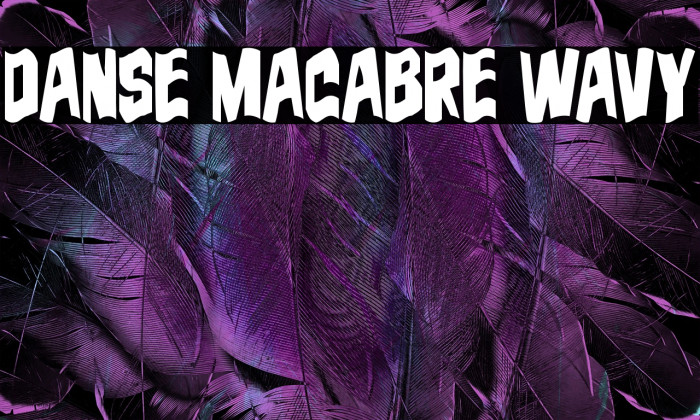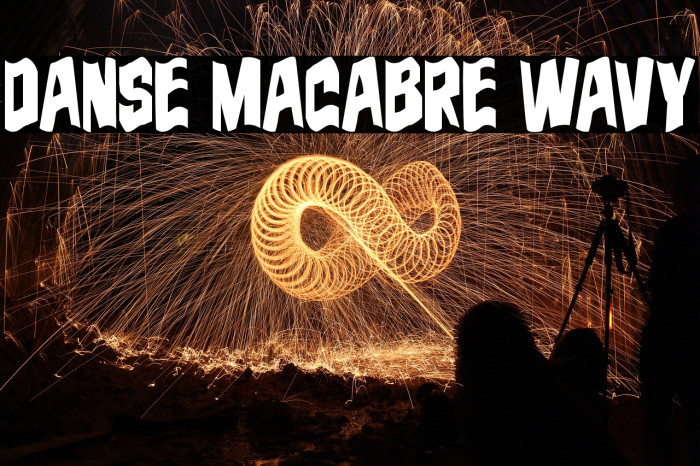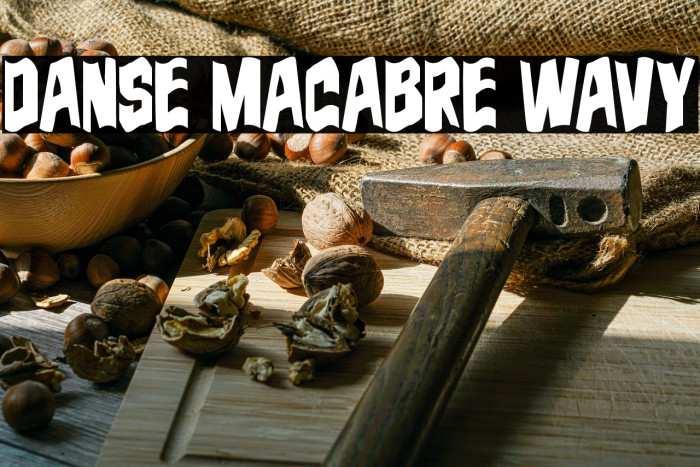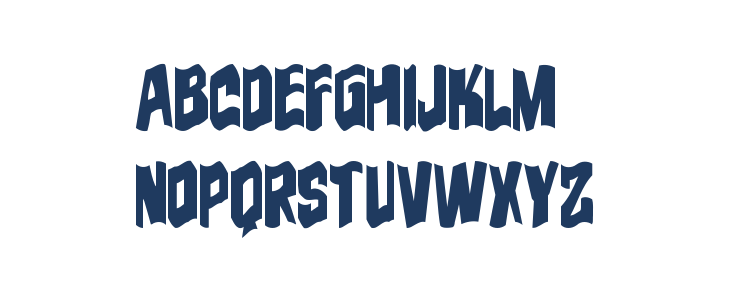
Danse Macabre Wavy Font
Danse Macabre Wavy Description
This font features a bold and dramatic style with wavy, distorted edges that create a sense of movement and energy. The characters are thick and heavy, giving them a strong presence on the page. The unique wave-like distortions add a playful yet edgy touch, making it stand out in any design. The uppercase and lowercase letters maintain a consistent style, while the numbers and special characters are equally bold and dynamic. This font is perfect for projects that require a striking and unconventional look.